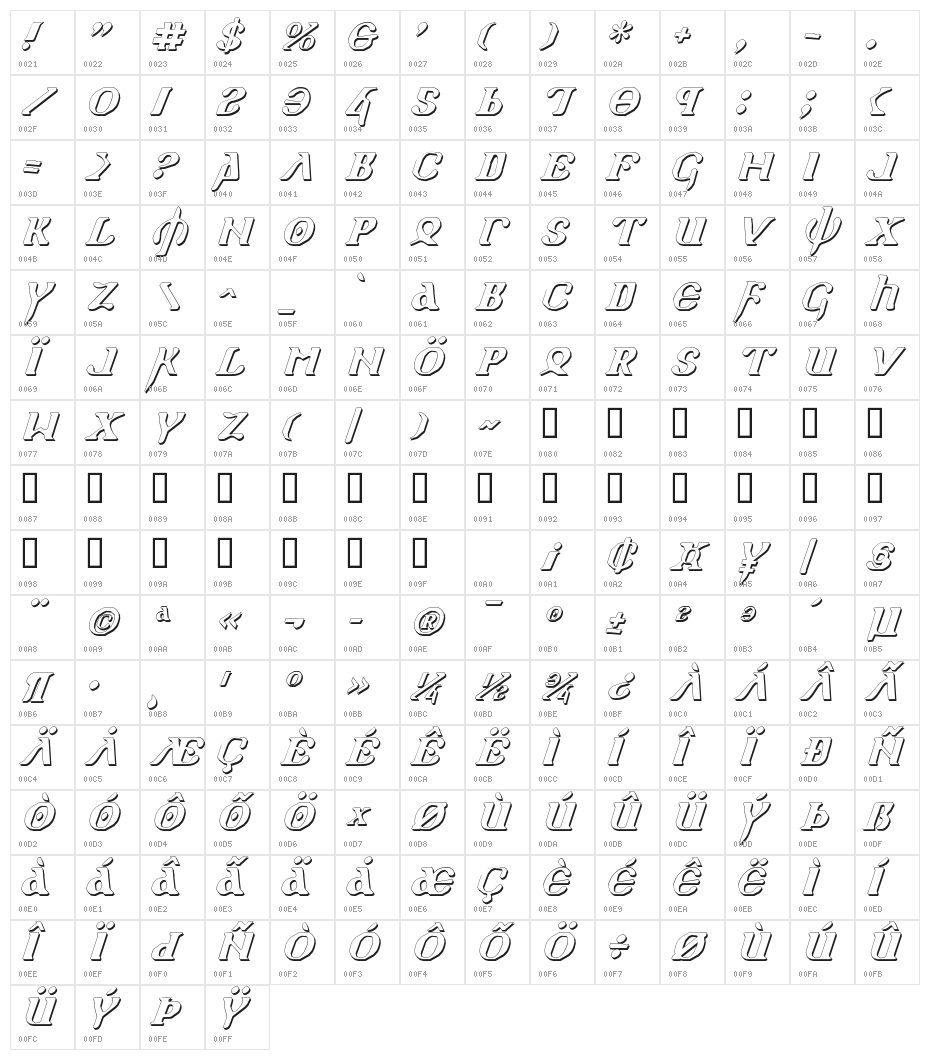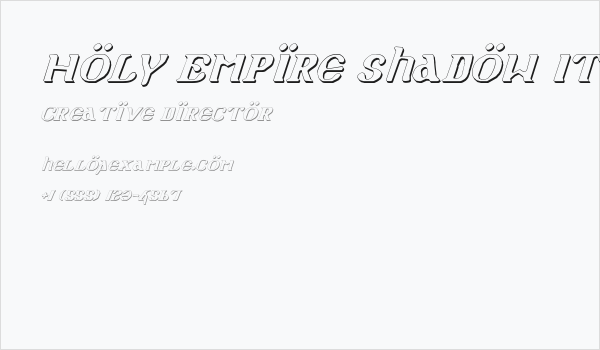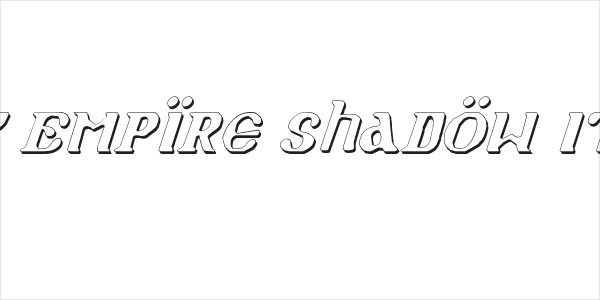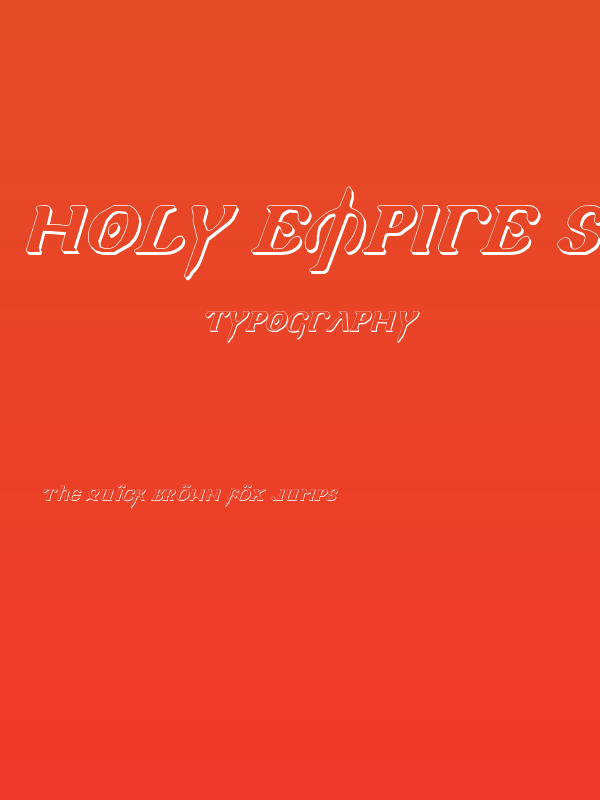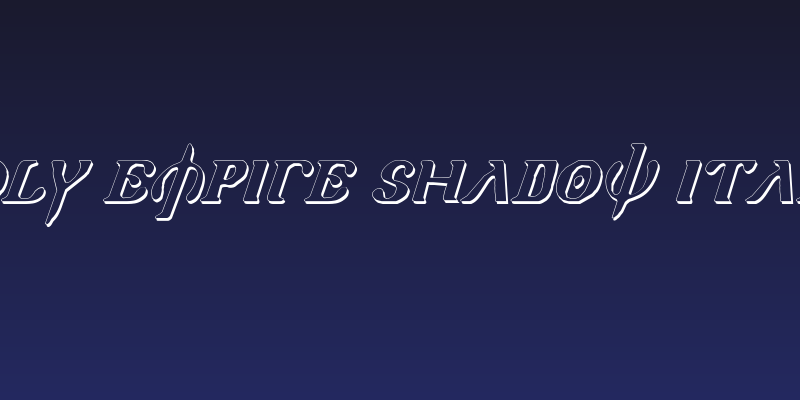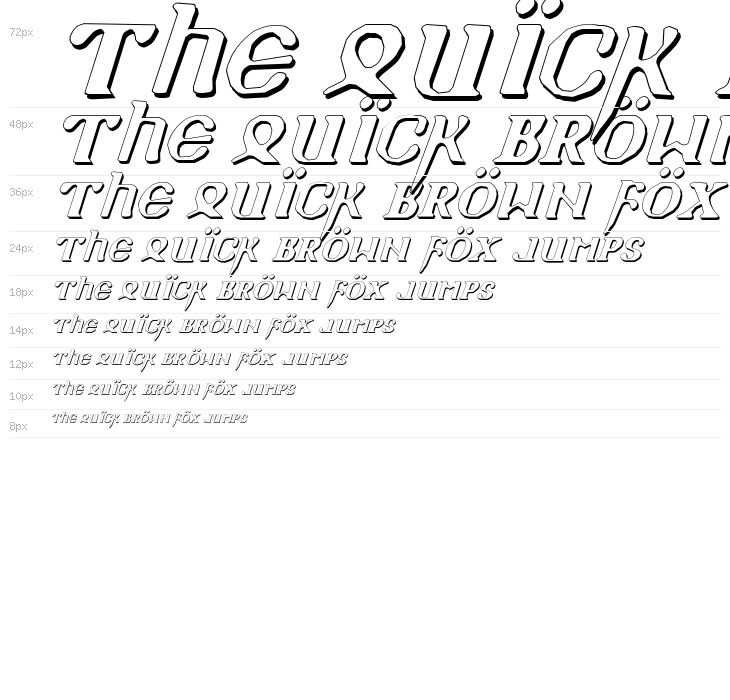
Holy Empire Shadow Italic Font
Holy Empire Shadow Italic Description
This font features a bold and dynamic style with a shadow effect that adds depth and dimension to each character. The italicized form gives it a sense of motion and elegance, making it stand out in any design. The uppercase and lowercase letters are crafted with sharp edges and distinct curves, providing a unique and eye-catching appearance. The numerals and special characters maintain the same stylistic elements, ensuring consistency throughout. This font is ideal for projects that require a strong visual impact and a touch of sophistication.
Proposed ProjectsIdeal for branding, posters, headlines, and any design needing a bold statement.